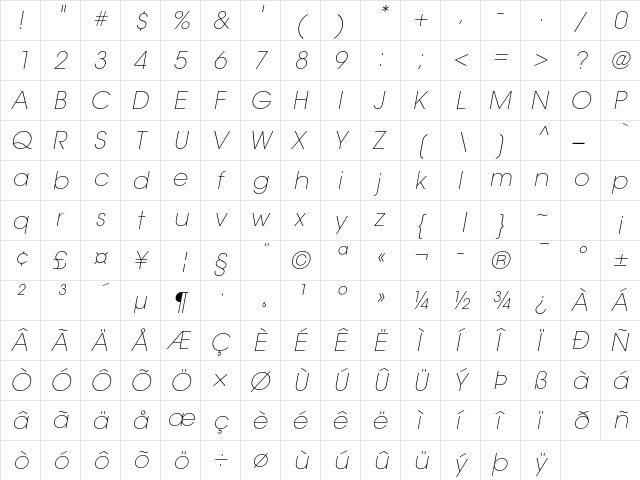
ITC Avant Garde Gothic Std Extra Light Oblique Font Preview
| Designer | Herb Lubalin and Tom Carnase |
Design Context for ITC Avant Garde Gothic Std Typeface
ITC Avant Garde Gothic Std takes a clean, functional approach — its unadorned letterforms prioritise legibility and work reliably across screen and print environments. The dynamic lean of this cut emphasises speed and emphasis in any layout. Its slender proportions lend an understated elegance to any composition.
Ideal for fashion and beauty branding, minimal editorial layouts, and premium digital experiences.
Font Pairing: Pair ITC Avant Garde Gothic Std with a medium or bold serif for headlines — the weight contrast creates an elegant, high-end feel.
Pro Tip: Avoid using ITC Avant Garde Gothic Std at very small sizes where its slender strokes can disappear. It performs best at medium to large sizes.